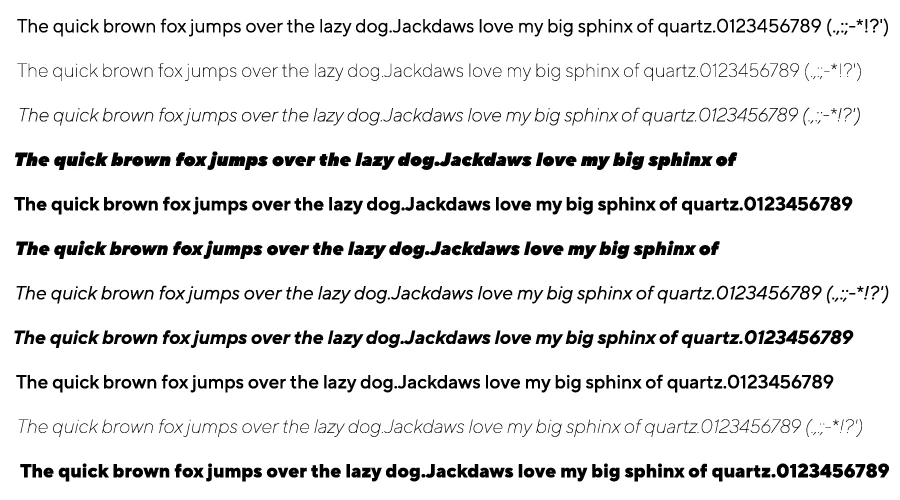
TT Norms is a Sans serif typeface font designed by Ivan Gladkikh in 2017. With 18 styles and huge language support, This font family has a set of arrows, proportional old style figures, tabular old style figures, set of the circled digit, and set of bad turned around the digit. The basis for TT Norms is the traditional type of individual proportions. TT Norms performs equally properly in huge textual content arrays as well as in little headings.
For its large number of weights, TT Norms font is compatible with every type of work.
- On Design: This font is compatible with every type of designing work. This font is also usable for cards, leaflets, newspapers (online/offline), presentations, webpages, blogs, book covers, social media posts, advertisements, product designs, posters, and many more.
- Logo and Branding: This font is also very suitable for logo design. People like this type of versatile elegant font for logos.
- Headline or Title: For its elegant style and bold weights, it is very much perfect for headline and title. Also, you can use this in the slogan or quotes.
- Display or Text: It works great as a display face but it also works well for small to intermediate size texts.
- Official Work: Being an elegant typeface it is very much perfect for official documents and printing purposes.
| Style | Sans serif |
| Designer | Ivan Gladkikh |
What type of font is TT Norms Font?
Ans: TT Norms is a sans-serif typeface font.